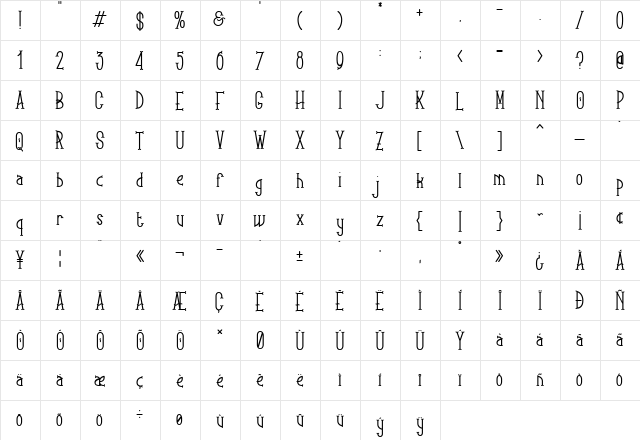
Brooks Regular
| Foundry | Arkara |
| Designer | Edy Bagus P |
Design Context for Brooks Typeface
Brooks offers clean, dependable letterforms without strong stylistic allegiance, making it a practical choice for designers who need flexibility.